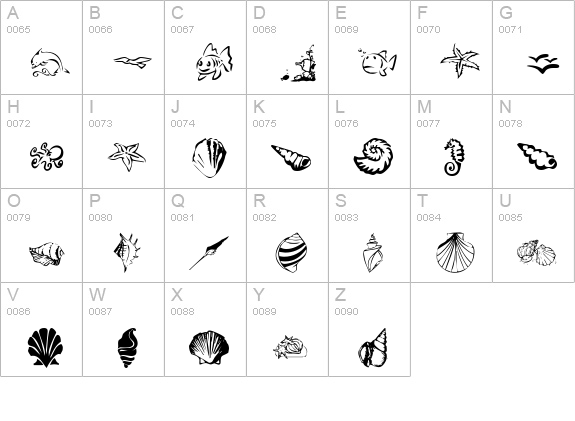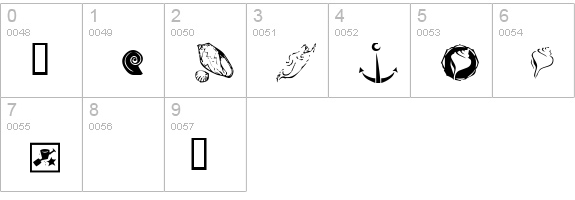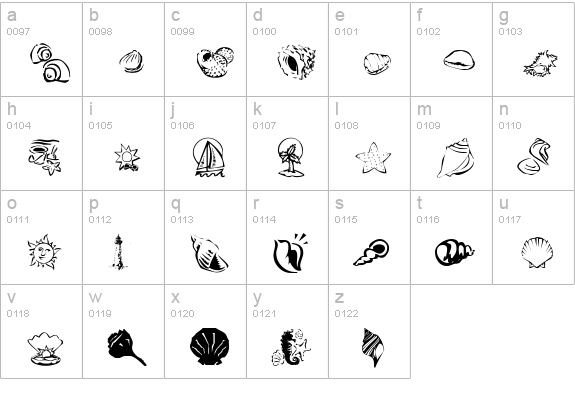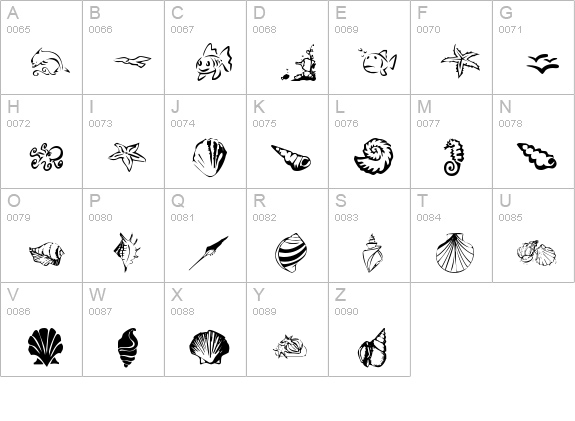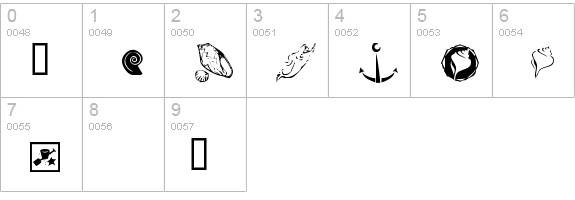
KR Down By The Sea Font Details
KR Down By The Sea font captures the essence of a serene seaside getaway with its whimsical and flowing design. This delightful font exudes a sense of relaxation and tranquility, making it perfect for projects that aim to evoke a sense of calm and peacefulness. With its gentle curves and elegant strokes, KR Down By The Sea adds a touch of whimsy and charm to any design. Best of all, KR Down By The Sea font is available for free download at FontsMarket.com. Whether you're working on a beach-inspired project or simply want to add a touch of seaside magic to your designs, this font is sure to inspire and delight. Download KR Down By The Sea font today and bring a little bit of coastal charm to your next creative endeavor.